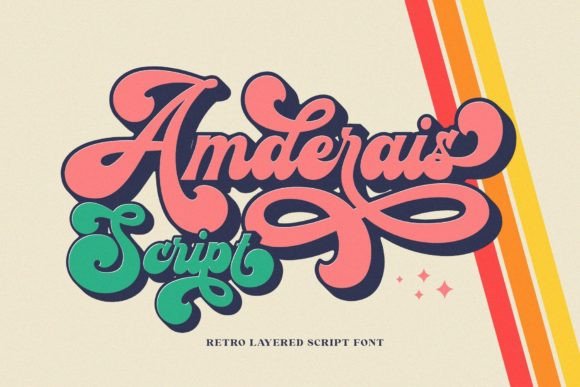
Introducing Amderais Font, the perfect choice for those looking to add a touch of retro style to their typographic designs! Created by Sealoung, this script font is the ideal choice for anyone looking for the best font for script tattoo designs.
Inspired by the iconic retro typographic designs of the late 60s to 70s, Amderais offers a stunning script font that will elevate any design project you have in mind. With its extruded version, this font makes it easy to create retro-effect fonts that are sure to grab attention.
But Amderais isn't just great for tattoos! This versatile font is perfect for logos, invitations, labels, magazines, books, greeting/wedding cards, packaging, fashion, make-up, stationery, novels, labels, and any advertising purposes you may have in mind.
One of the standout features of Amderais is its PUA encoding, which means you can easily access all of the glyphs and swashes with ease. This makes it easy to create unique designs that stand out from the crowd.